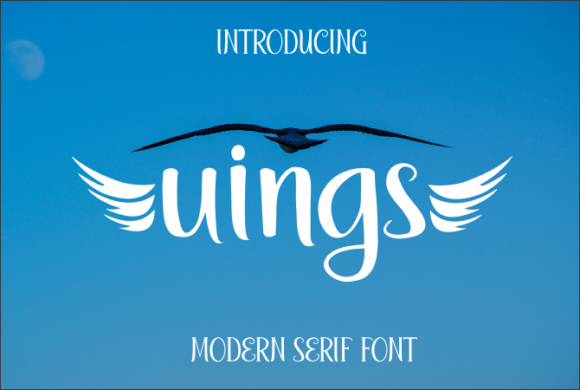
Journey into the realm of typography with Uings Font, a script font family that promises to captivate your designs with its enchanting charm. Created by the visionary Jaime Rangel Castro, Uings Font is a masterpiece of digital calligraphy, designed to evoke emotions and leave a lasting impression.
Uings Font possesses a remarkable ability to transform ordinary words into captivating expressions. Its sweet and gentle nature lends itself effortlessly to a myriad of design projects, injecting a touch of whimsical elegance into posters, invitations, branding, and social media graphics. As a handwritten font, Uings Font exudes a personal and intimate feel, drawing your audience into the heart of your message.
With Uings Font at your disposal, your creative potential knows no bounds. Its meticulously crafted characters dance harmoniously on the page, creating a visual symphony that captivates the eye. The well-balanced design ensures that each letter seamlessly blends into the next, resulting in a cohesive and visually appealing aesthetic.
Unleash your creativity and let Uings Font ignite your imagination. Its versatility allows you to effortlessly adapt it to diverse design concepts, from whimsical illustrations to sophisticated logos. Whether you seek to create a playful and lighthearted atmosphere or convey a sense of timeless elegance, Uings Font seamlessly adapts to your vision.
Experience the transformative power of Uings Font today and elevate your designs to new heights. Its magical essence will infuse your projects with a touch of enchantment, leaving an indelible mark on the hearts and minds of your audience. Embrace the beauty of handwritten typography and watch as your designs blossom into works of art.